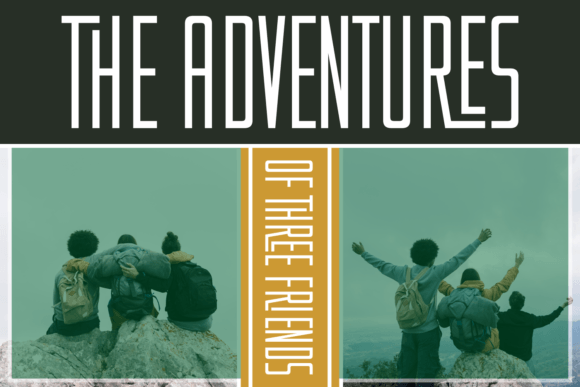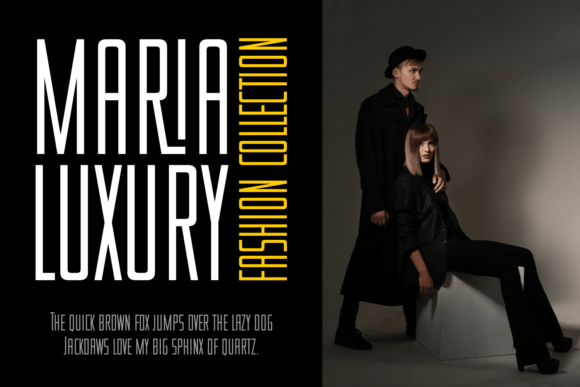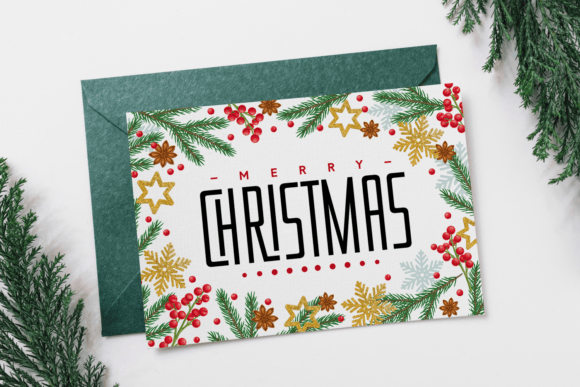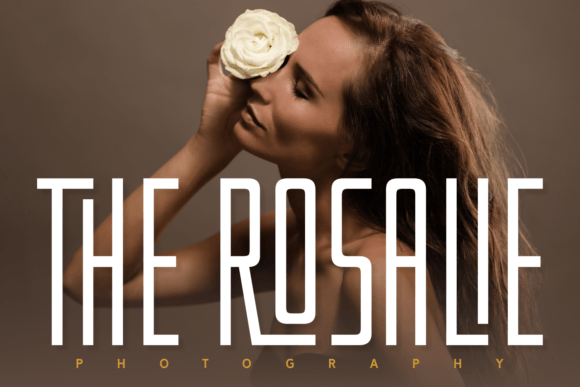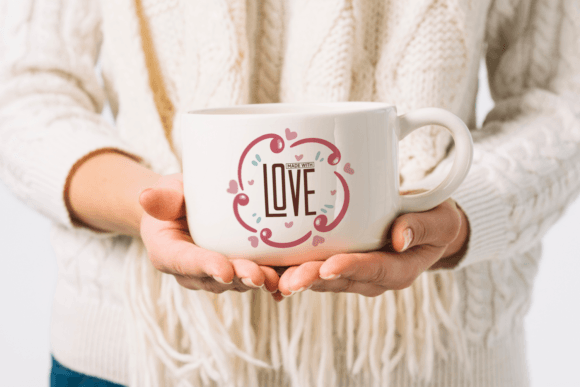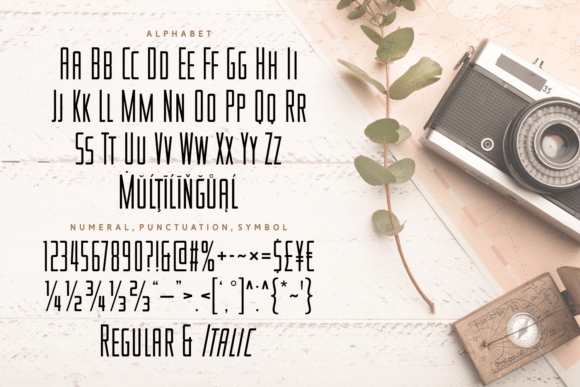
Feria Font: The Ultimate Sans Serif Font for Modern Designers and Crafters
In the world of typography, a font can make all the difference in the success of a design project. Whether you’re a professional designer, crafter, or simply a DIY enthusiast, finding the right font can elevate your work from ordinary to extraordinary. If you’re on the hunt for a modern, easy-to-read sans serif font that exudes style and authenticity, look no further than Feria Font.
What is Feria Font?
Feria Font is a sleek and contemporary sans serif font designed to convey impeccable authenticity and style. Its clean lines, simple shapes, and highly legible design make it perfect for a wide range of applications, from crafts and digital design to presentations and greeting cards. With Feria Font, you can add a touch of modern sophistication to your projects, making it an excellent choice for designers and crafters alike.
Key Features of Feria Font
So, what sets Feria Font apart from other fonts on the market? Here are some of its key features:
- Modern and Easy-to-Read Design: Feria Font boasts a sleek, modern design that’s easy on the eyes. Its simple shapes and clean lines make it highly legible, even at small font sizes.
- Multipurpose: Whether you’re working on a digital design project, creating handmade crafts, or making greeting cards, Feria Font is the perfect choice.
Why Choose Feria Font?
With so many fonts available, why should you choose Feria Font for your next project? Here are just a few compelling reasons:
- Authenticity and Style: Feria Font exudes a sense of style and authenticity that’s hard to find in other fonts. Its modern design and sleek lines make it perfect for projects that require a touch of sophistication.
- Versatility: With Feria Font, you can create a wide range of projects, from digital designs and presentations to handmade crafts and greeting cards.
How to Use Feria Font
Now that you know why Feria Font is an excellent choice for your design projects, let’s explore some ways to use it:
- Digital Design: Use Feria Font in your digital design projects, such as brochures, flyers, and social media graphics.
- Crafts: Add a touch of modern style to your handmade crafts, such as scrapbooking, card making, and journaling.
- Presentations: Make your presentations stand out with Feria Font’s sleek and professional design.
- Greeting Cards: Create beautiful and stylish greeting cards for any occasion using Feria Font.